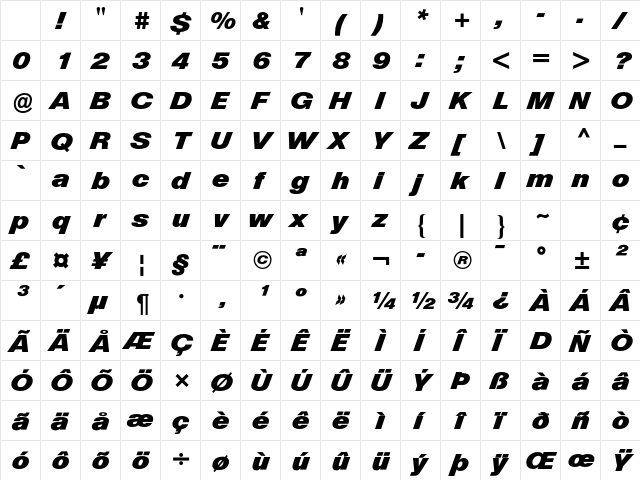
Complete Berthold Standard Diagonal Bold Italic glyph index. Displaying only characters natively supported by Berthold Standard Diagonal Bold Italic font.
Berthold Standard Diagonal is a composed and adaptable typeface that performs quietly and consistently across a wide range of design contexts. The slanted form adds forward momentum and visual energy. Its bold stroke weight gives it real presence on the page.